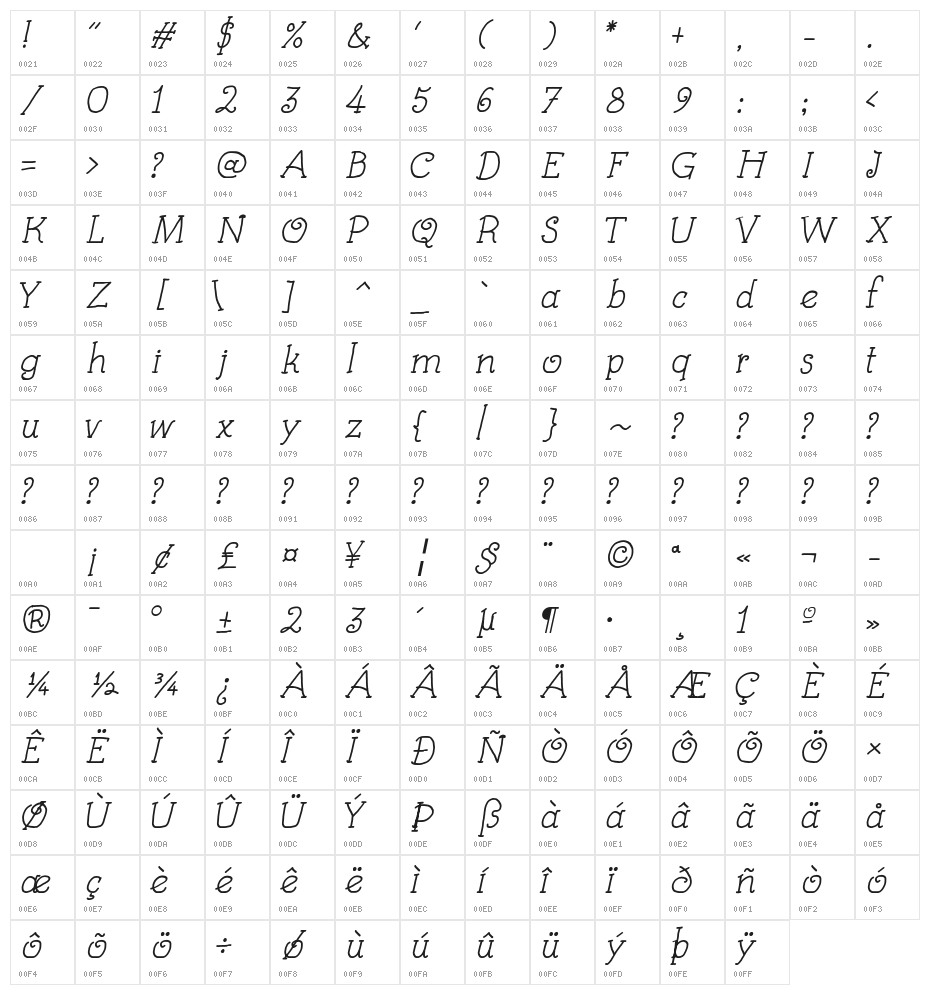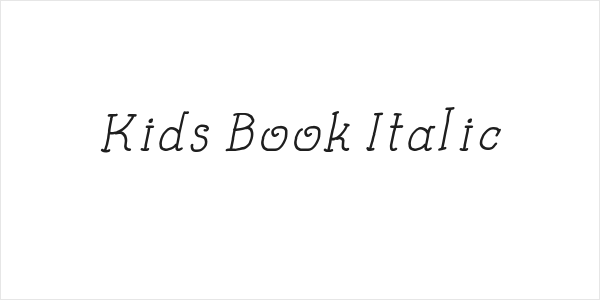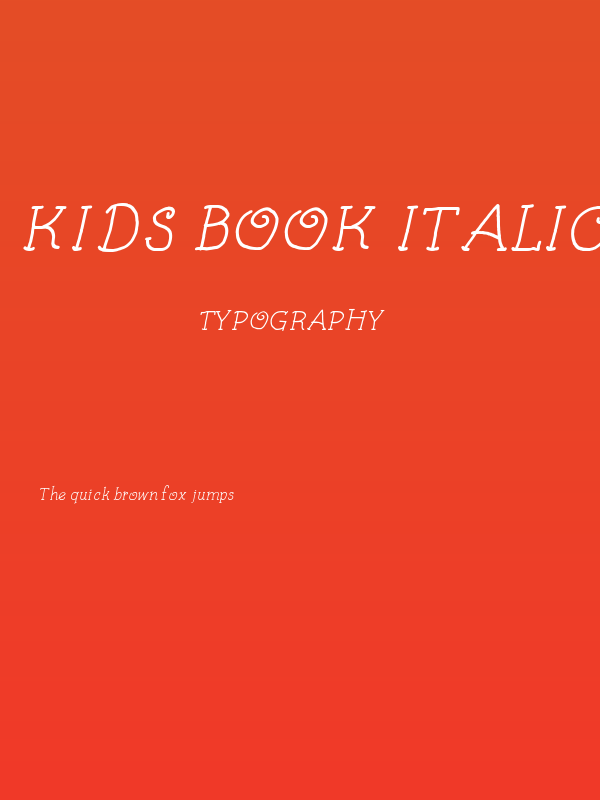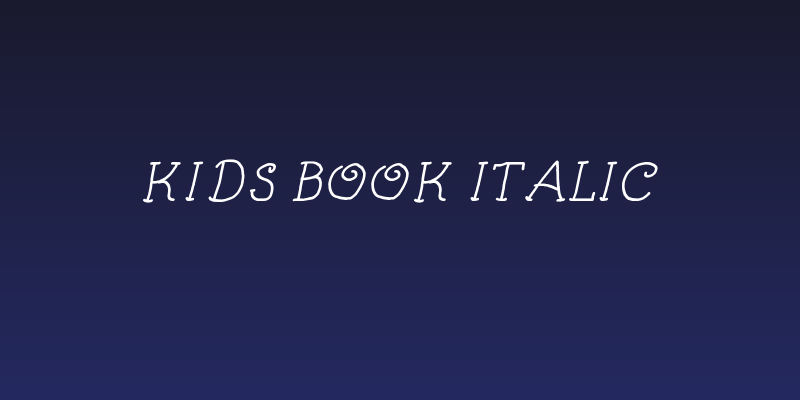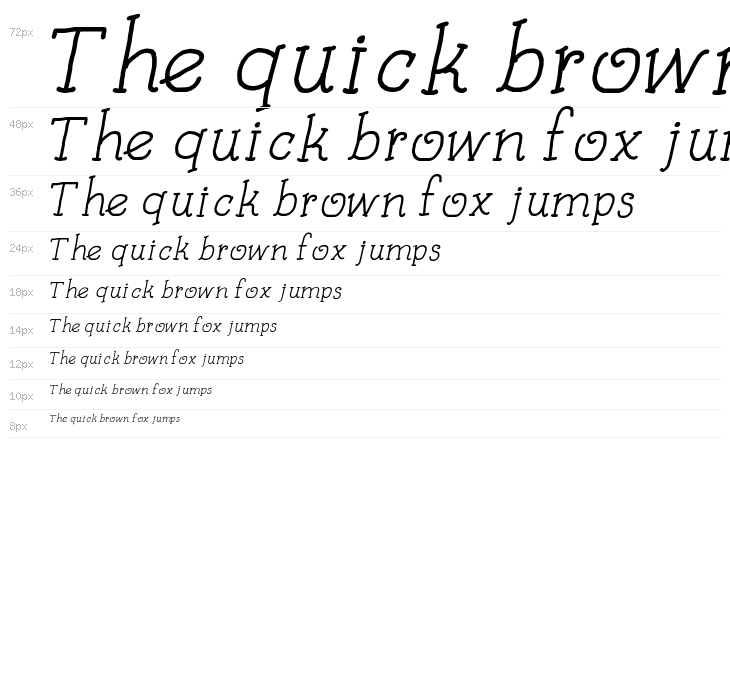
Kids Book Italic Font
Kids Book Italic Description
This font features a playful and whimsical style, characterized by its italicized, handwritten appearance. The letters are slightly slanted, giving a sense of motion and energy, which is ideal for capturing the attention of young readers. The strokes are consistent and smooth, with a moderate contrast between thick and thin lines, adding to its readability. The characters are well-spaced, ensuring clarity and ease of reading. This font includes a full set of uppercase and lowercase letters, numbers, and a variety of punctuation marks and special characters, making it versatile for different uses.
| Use Case | Headlines, Children's books, Invitations |
| Proposed Projects | Ideal for children's books, educational materials, playful invitations, and creative projects. |